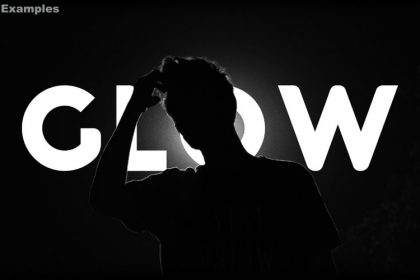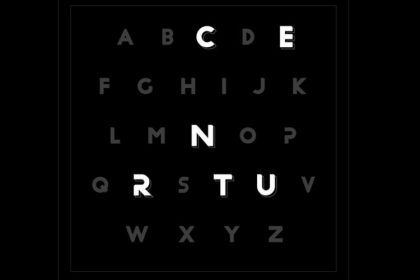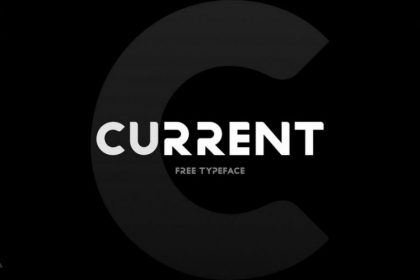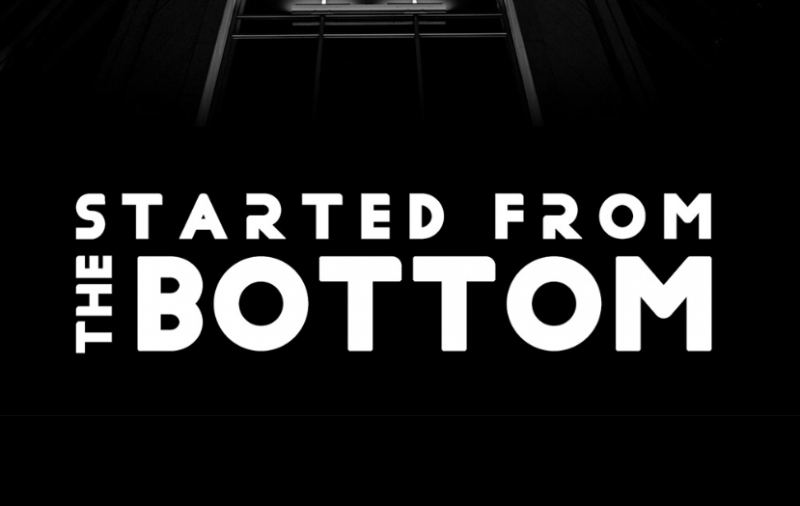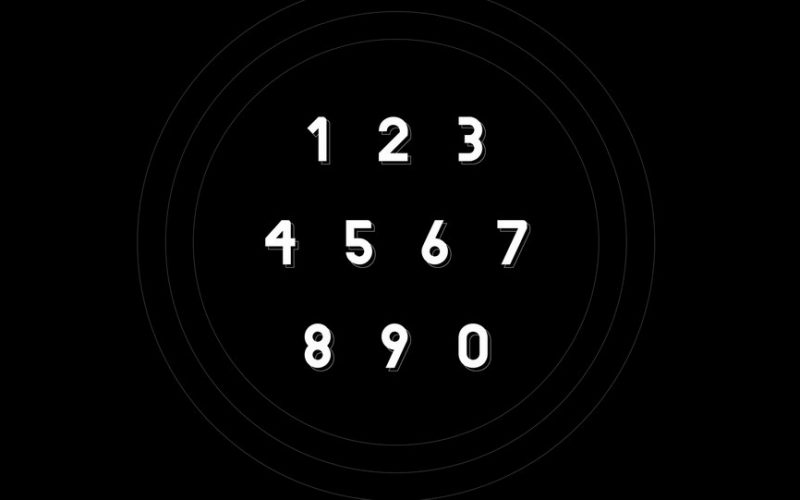
Current Free Typeface
This is a bold, yet classic display font, with just a little wiggle to remind you that it was drawn by hand. This font would pair well with a script or signature style. Introducing Current Free Font! Current Free Typeface is a big, bold and beautiful sans-serif font designed and developed by Matt Pendrill. With its clean lines, round corners and striking presence, it evokes a sense of power and strength not often found in typefaces of its ilk. For this reason, it works great as a headline on billboards, posters and web pages.